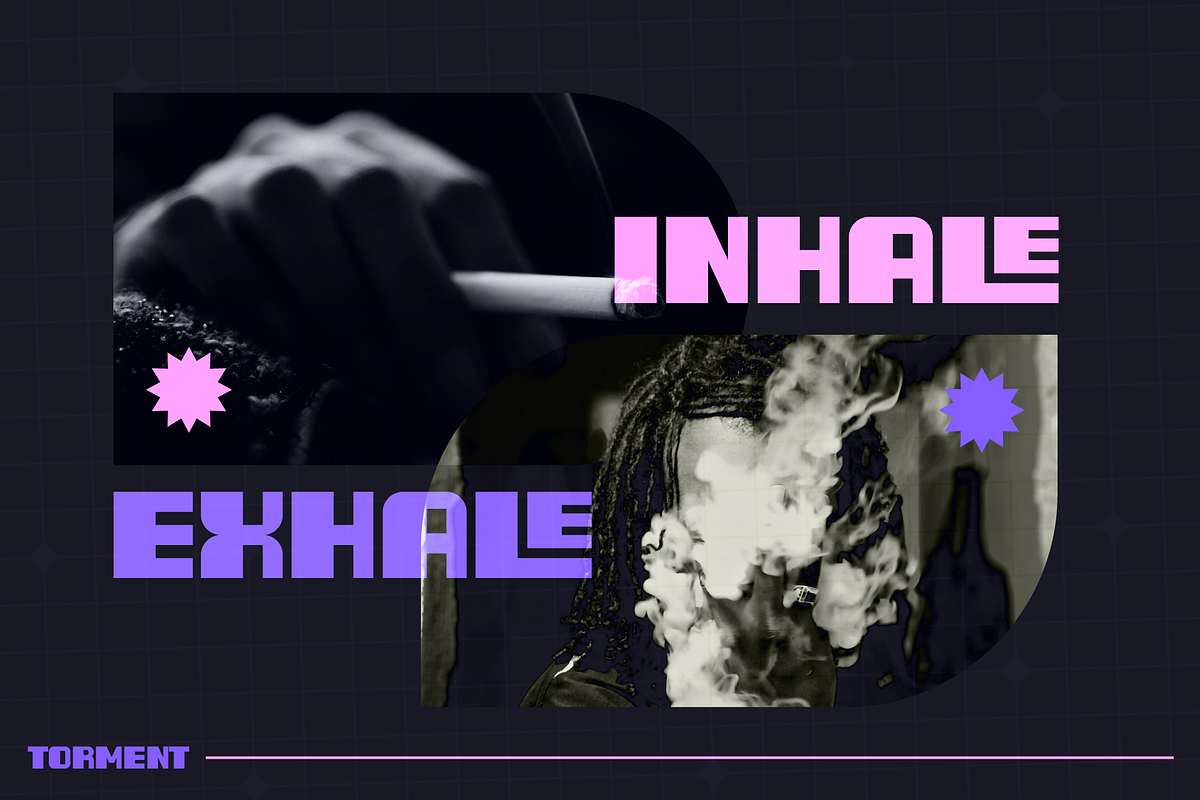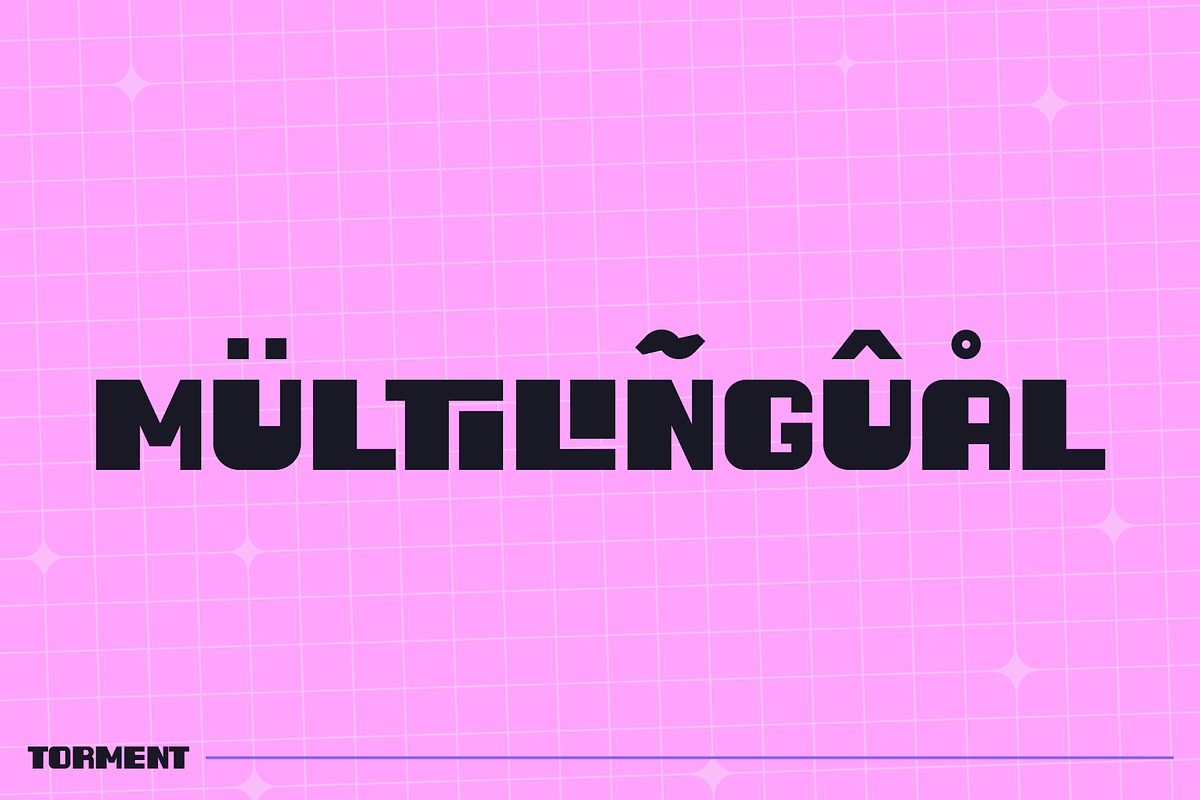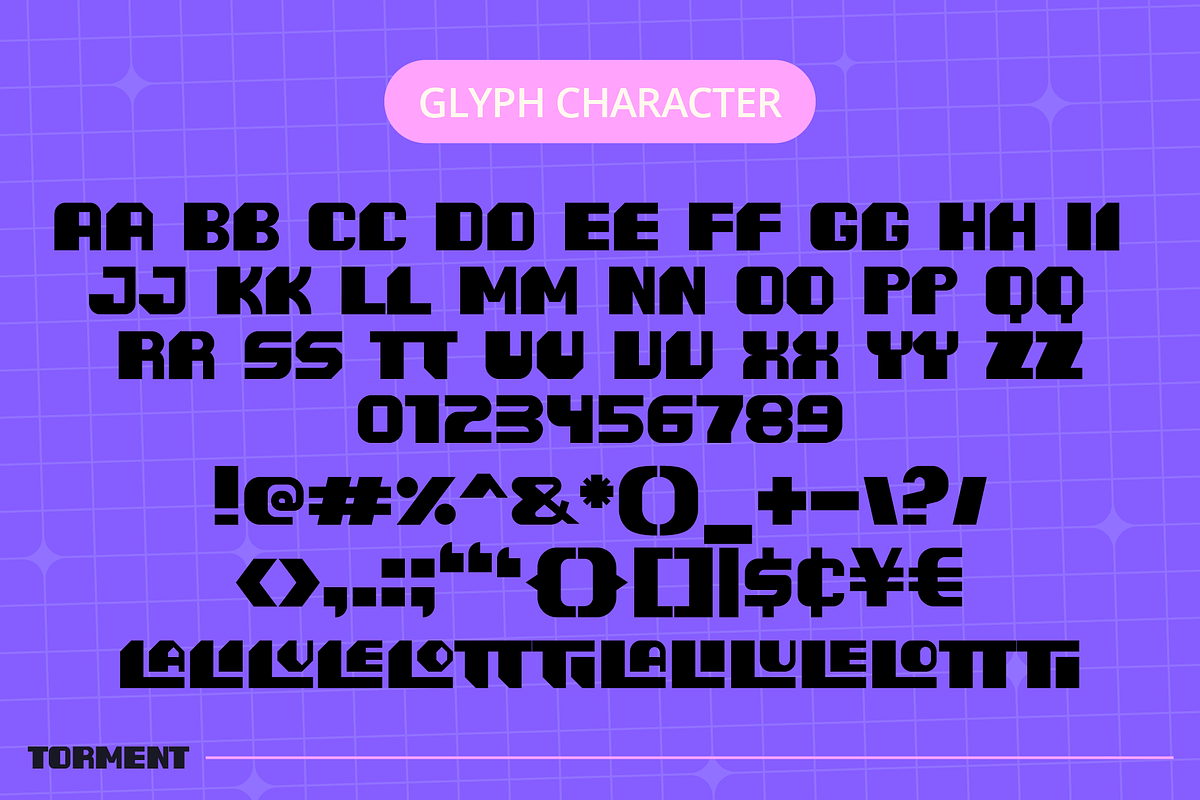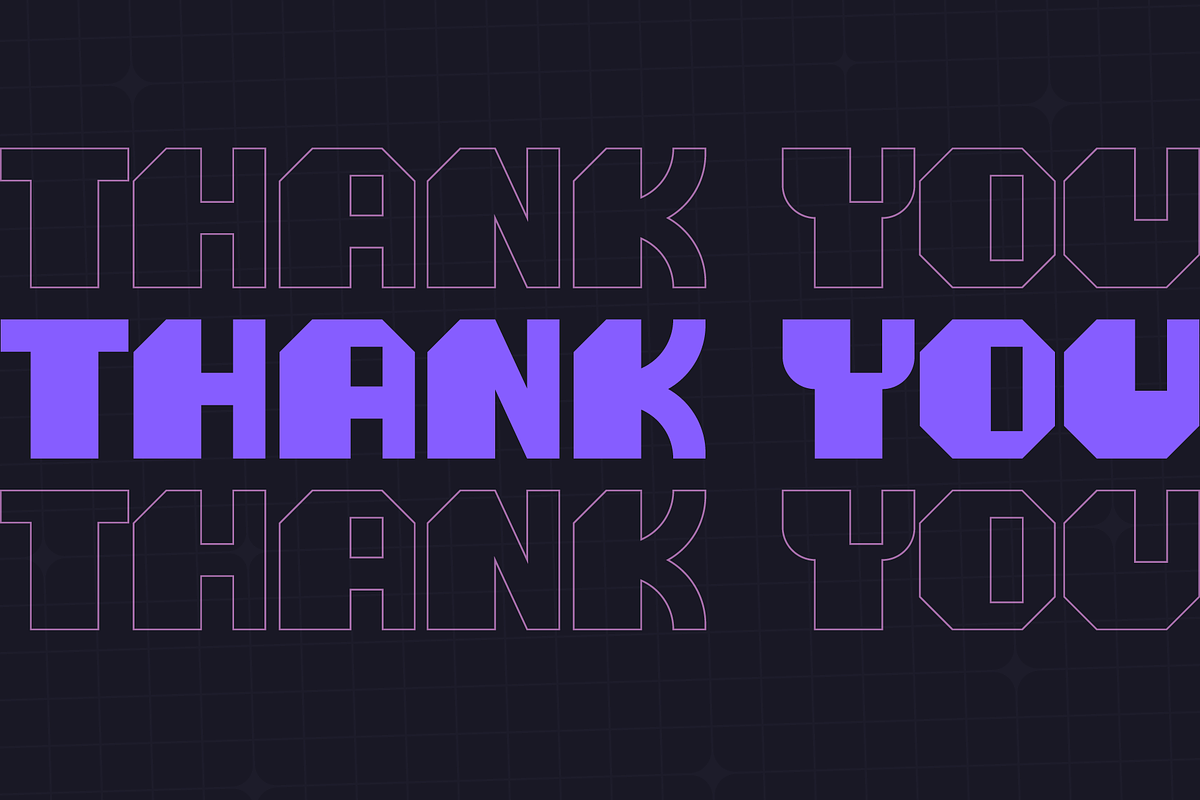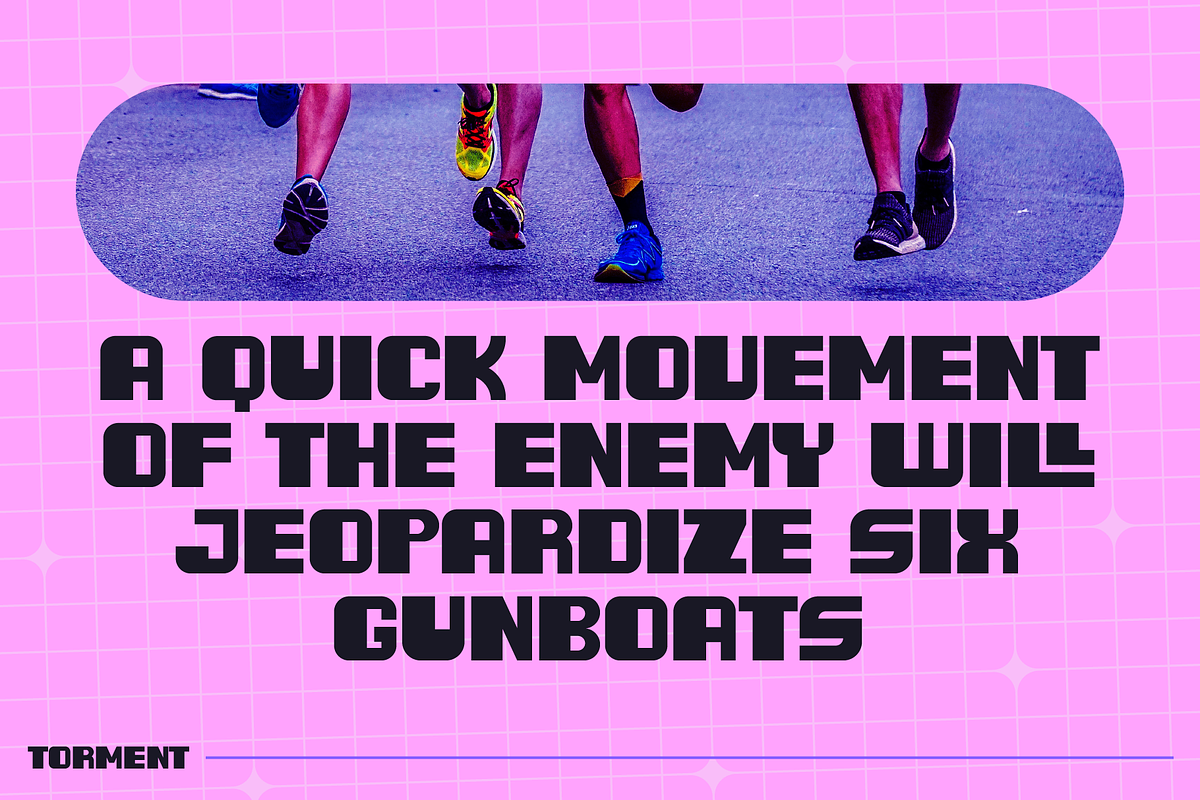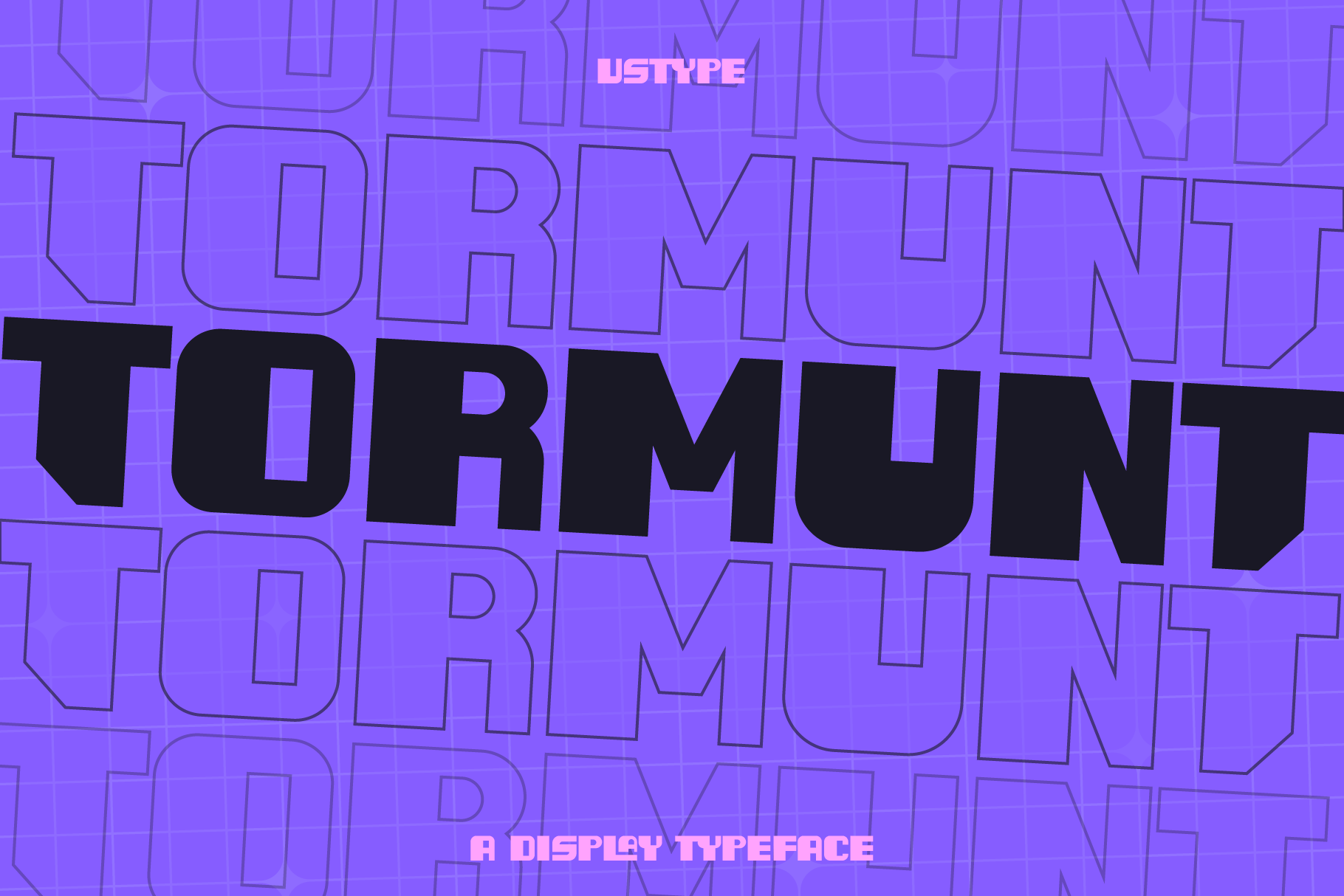
Tormunt - Bold Display Font
Tormunt Bold Font by Vestype
Get ready to make a bold statement with our newest font! With its strong lines and eye-catching design, this font is perfect for posters, banners, and other projects that require a powerful and impactful look.
- UPPERCASE
- LOWERCASE
- NUMBER
- PUNCTUATION
- LIGATURE
- MULTILINGUAL